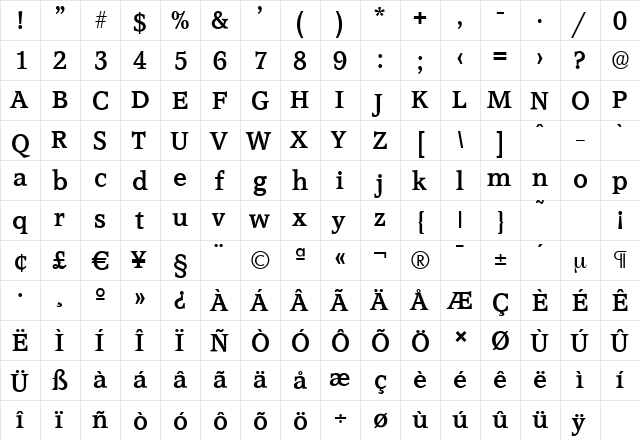
AccoladeSerial Bold
Design Context for AccoladeSerial Typeface
AccoladeSerial offers clean, dependable letterforms without strong stylistic allegiance, making it a practical choice for designers who need flexibility. Its bold stroke weight gives it real presence on the page.